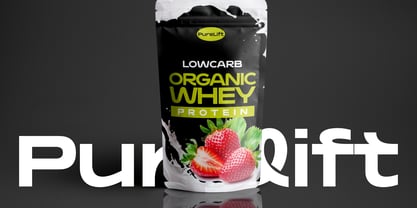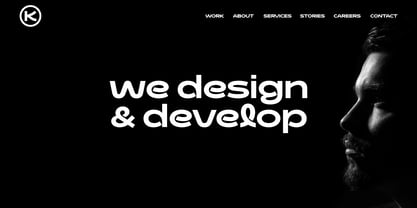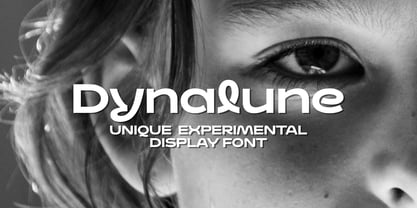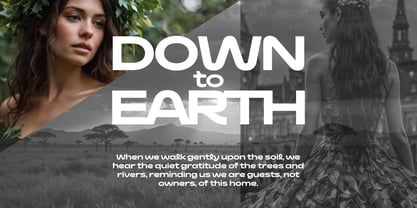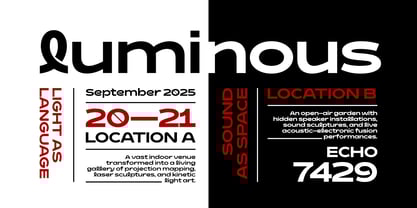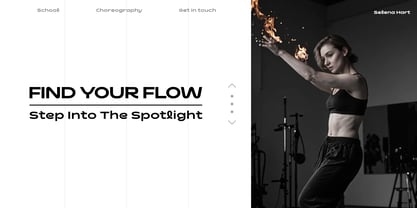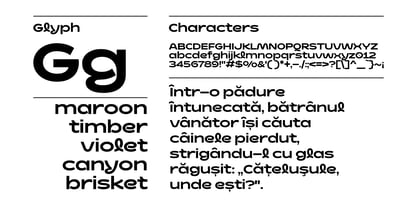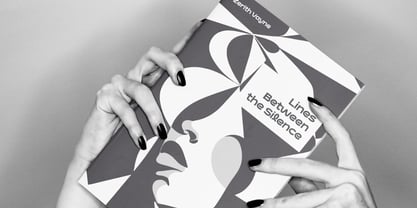
Dynalune
by Hazztype
The Dynalune Font Family was designed by Muhammad Hastian and published by Hazztype. Dynalune contains 1 styles. More about this family
Dynalune is an experimental expanded sans serif that blends modern geometric structure with subtle script-inspired details. Letters like l, g, and y borrow fluid forms from handwriting, adding a dynamic and expressive twist to the strong sans serif base.
Perfect for branding, posters, editorials, headlines, and creative projects, Dynalune delivers both readability and visual surprise. With its bold, futuristic, and experimental style, this typeface brings words to life with distinctive personality.